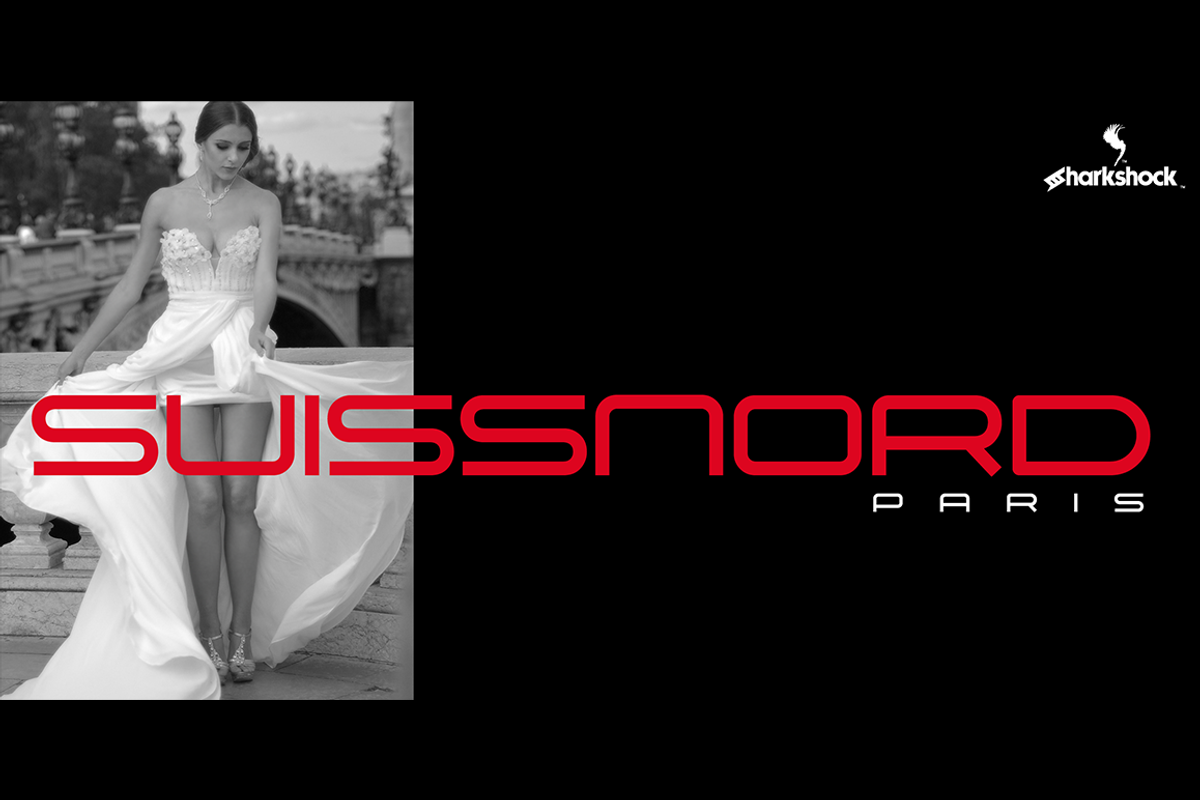
Suissnord
Suissnord is a simple, yet elegant solution that adds style to your project. The lines are sleek and slender keeping the same weight throughout the entire alphabet. You’ll find lowercase variants in this all caps display font such as a, e, and n. Basic Latin, extended Latin, diacritics, and basic punctuation are included. Use Suissnord for a magazine, fashion ad, or company logo.